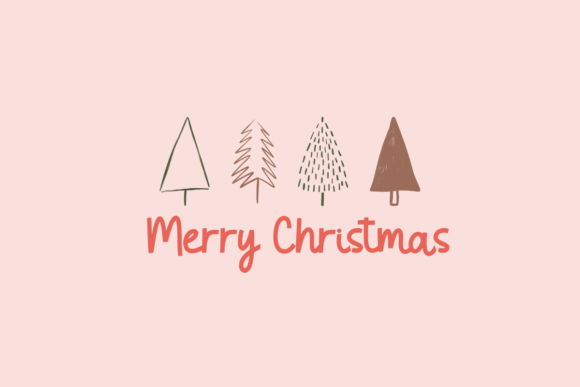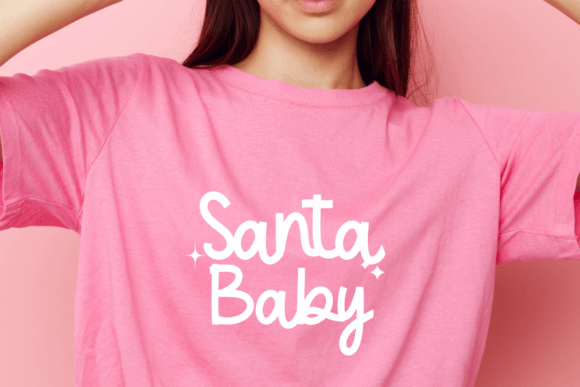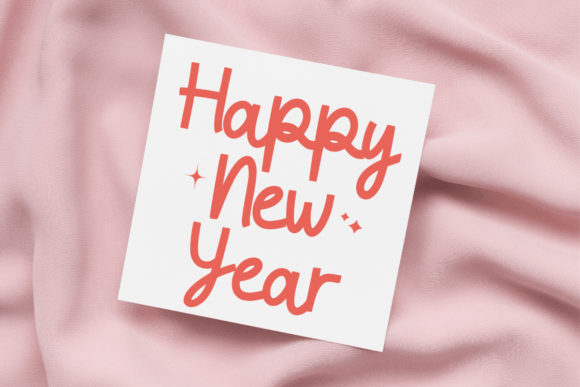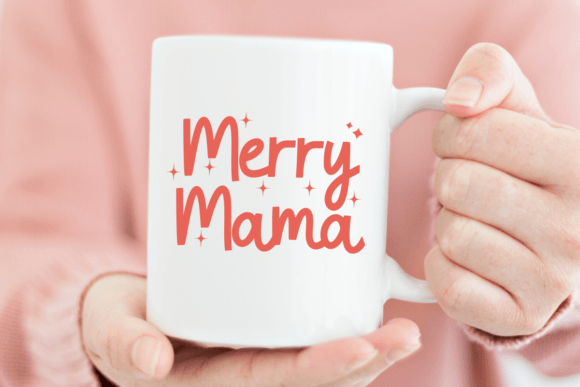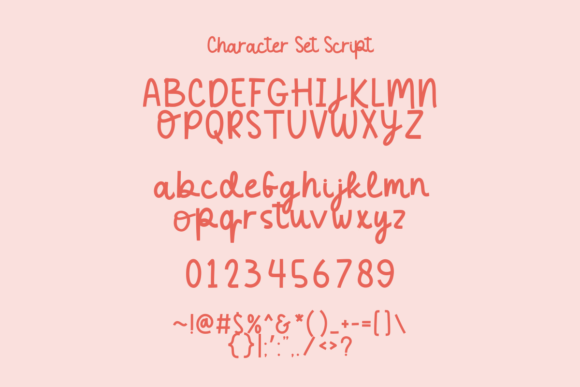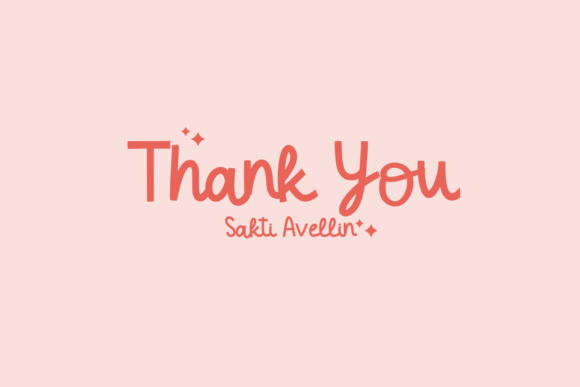
Introduction to Merry Babe Font
Who hasn’t felt the rush of excitement when working on a new creative project, only to realize that the perfect design element is missing? As designers, we’ve all been there – staring at a blank canvas, searching for that elusive piece of flair that will bring our vision to life. That’s where the Merry Babe Font comes in – a delightful, free download that adds a touch of whimsy and charm to any design.
This high-quality, handwritten font is a game-changer for designers looking to add a playful and fun look to their creative projects. With its transparent background and versatile style, it’s perfect for quotes, t-shirts, tote bags, greeting cards, mugs, and more. Whether you’re a seasoned pro or just starting out, the Merry Babe Font is an invaluable resource that’s sure to bring a smile to your face and a touch of magic to your designs.
Key Features of Merry Babe Font
- Unique, hand-drawn design perfect for creative projects and design resources.
- High-quality font with transparent background, ideal for use in digital and print materials.
- Designed to be highly legible, with a clear and easy-to-read font style suitable for a wide range of applications.
Honest Review: Merry Babe Font
I recently had the chance to try out the Merry Babe Font, and I must say it’s a lovely addition to any design project. The font itself is a high-quality, cursive script that’s perfect for creative projects where you want to add a touch of elegance.
- What works well: ✨ The Merry Babe Font is incredibly versatile and can be used for a wide range of design projects, from wedding invitations to social media graphics. It also comes in a transparent background, making it easy to layer over images or other design elements.
However, there are a few limitations to consider. The font is only available in a limited number of styles, and it may not be suitable for projects where you need a more formal or sans-serif font.
- Limitations: ⚠️ The Merry Babe Font may not be suitable for projects that require a more formal tone or a sans-serif font.
Overall, I’m really impressed with the Merry Babe Font. It’s a great addition to any design resource library, and it’s perfect for designers who want to add a touch of creativity to their projects.
Merry Babe Font
The Merry Babe Font is a high-quality design resource perfect for creative projects. It’s available for free download with a transparent background, making it easy to incorporate into your designs.
Tips for Getting the Most Out of the Merry Babe Font
To get the most out of the Merry Babe Font, experiment with different font sizes, colors, and styles. You can also use it in combination with other design elements to create a unique look.
The Merry Babe Font is perfect for creative projects such as invitations, posters, and social media graphics. It’s also great for branding and marketing materials.
Alternatives to Merry Babe Font
Great Vibes Font is a beautiful, cursive script font perfect for creative projects. It features a high-quality design with a transparent background, making it ideal for digital art and design. When to use: wedding invitations, quotes, and other romantic designs. It compares to Merry Babe Font in its elegant and feminine feel, but Great Vibes Font has a more relaxed and casual tone.
Alex Brush Font is a stunning, handwritten font ideal for designers looking for a unique and creative resource. It features a high-quality design with a transparent background, making it perfect for digital art and design. When to use: branding, packaging, and other high-end designs. It compares to Merry Babe Font in its elegant and sophisticated feel, but Alex Brush Font has a more modern and edgy tone.
Carolyna Pro Font is a beautiful, script font perfect for designers looking for a high-quality design resource. It features a transparent background and is ideal for digital art and design. When to use: invitations, quotes, and other creative projects. It compares to Merry Babe Font in its elegant and feminine feel, but Carolyna Pro Font has a more refined and sophisticated tone.
Q: Does the Merry Babe Font have a transparent background?
Yes, the Merry Babe Font has a transparent background, making it ideal for use on images with complex backgrounds. The font’s transparent background allows you to easily overlay text on top of images without worrying about unwanted backgrounds or edges.